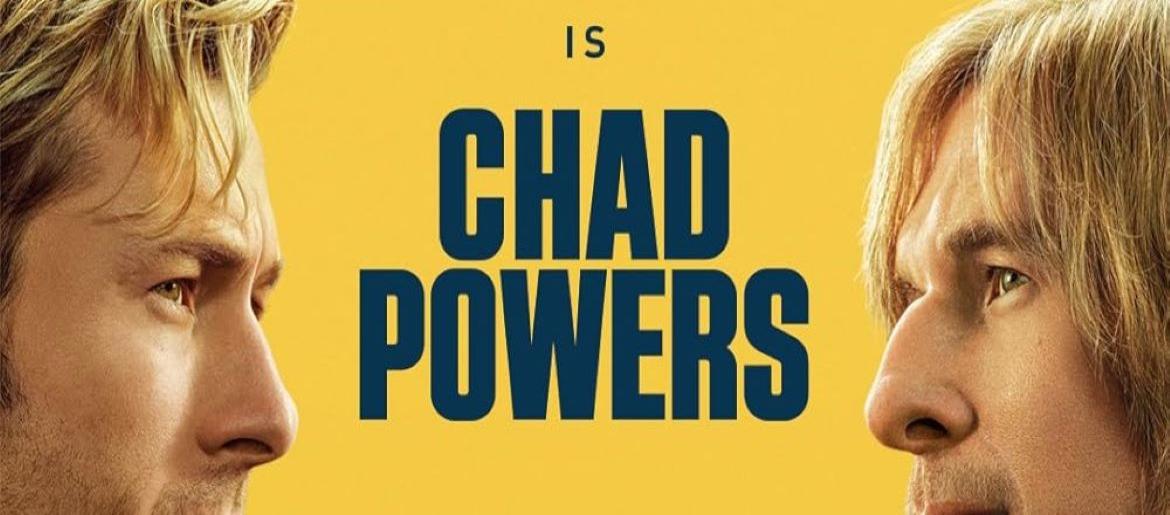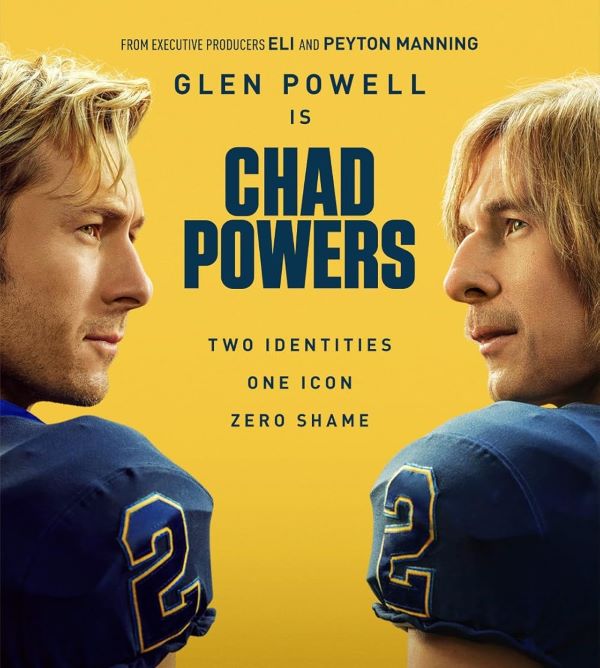
Chad Powers Font
What is The Font Of Chad Powers?
The Chad Powers font used in the Hulu series title is most likely Kuunari Black Condensed, a bold and modern typeface known for its clean lines and confident structure. Its compact lettering and strong visual presence give the logo a sense of energy and humor, fitting perfectly with the show’s comedic tone. However, we’ve found a free alternative font that closely resembles the original style, making it a great choice for similar design or fan-inspired projects.
About Chad Powers
Chad Powers is a Hulu original comedy series created by and starring Eli Manning, based on his viral alter ego introduced in Eli’s Places. The show follows a washed-up quarterback trying to reinvent himself under a new identity. With its witty storytelling and sharp satire, the series blends sports culture with humor — and the bold, clean typography of the logo reflects its playful yet confident personality.